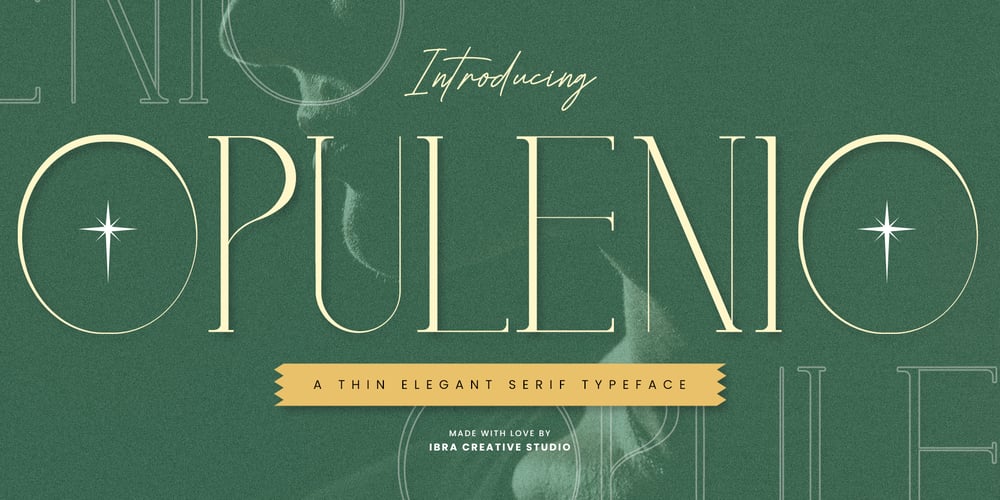
Opulenio Font Family was designed by Roisatul Azizah and published by IbraCreative. Opulenio contains 1 styles and family package options. Opulenio – A Thin Elegant Serif TypefaceOpulenio, a thin and elegant serif typeface, epitomizes sophistication with its refined design and delicate strokes. The slender serifs and gracefully elongated letterforms create an air of timeless grace, making Opulenio a perfect choice for projects that demand a touch of luxury and class. The precise balance between thin lines and subtle detailing contributes to its understated beauty, ensuring legibility while exuding a sense of modern opulence. Whether employed in editorial design, branding, or invitations, Opulenio effortlessly communicates a sense of style and exclusivity, captivating the eye with its slender yet impactful presence. This typeface seamlessly blends modern aesthetics with classic charm, offering a versatile and distinguished typographic solution for those seeking an elegant and refined visual language.Opulenio is perfect for branding projects, logo, wedding designs, social media posts, advertisements, product packaging, product designs, label, photography, watermark, invitation, stationery, game, fashion and any projects.Fonts include multilingual support for; Afrikaans, Albanian, Czech, Danish, Dutch, English, Estonian, Finnish, French, German, Hungarian, Italian, Latvian, Lithuanian, Norwegian, Polish, Portuguese, Slovak, Slovenian, Spanish, Swedish.